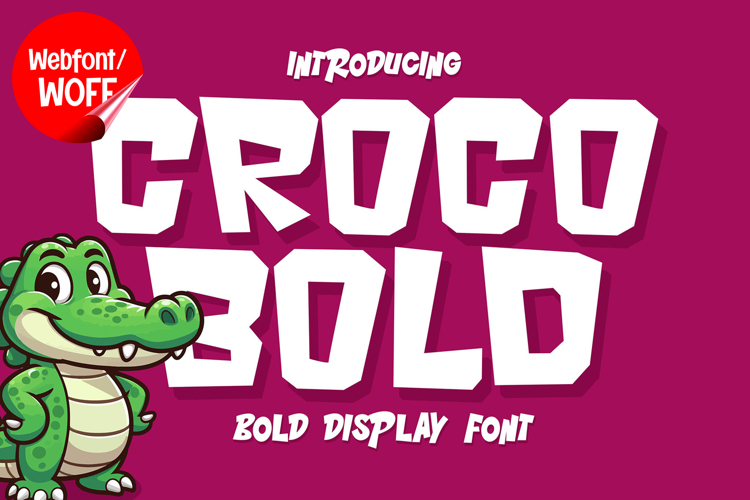
Crocobold | Bold Display Webfont for Strong Visual Impact
Crocobold is a bold display webfont designed to deliver strong visual presence and confident character for modern website design. With its thick letterforms and solid structure, this font creates a powerful and attention-grabbing look that stands out across digital layouts. It is an excellent choice for projects that require a clean yet impactful typographic style.
Crocobold includes a complete set of uppercase characters designed with bold and well-balanced proportions. The letterforms are strong and clear, making them highly effective for headlines, banners, hero sections, and featured content. Its solid structure helps create a clear visual hierarchy, allowing important messages to stand out with ease.
In addition to letters, the font includes numbers and punctuation, providing flexibility for various website elements. It works well for promotional text, pricing displays, navigation highlights, and branding components. Each character maintains a consistent bold style, ensuring a cohesive and unified visual identity throughout the layout.
With multilingual support, Crocobold includes a wide range of accented characters, making it suitable for international websites and global audiences. This ensures that content can be presented clearly across different languages while maintaining a strong and consistent visual style.
The bold display style of Crocobold makes it especially suitable for branding websites, corporate pages, product showcases, creative portfolios, and digital campaigns. Its confident and modern appearance adds clarity and impact, helping websites stand out in competitive digital environments. The straightforward design also makes it versatile across different industries and design themes.
Despite its bold and heavy appearance, Crocobold is designed with readability in mind. The spacing and proportions are carefully balanced to ensure clarity, particularly in display sizes. This allows designers to use the font effectively for high-impact text without sacrificing usability.
Crocobold is a webfont that combines bold design with modern digital performance. Its strong shapes, clean structure, and confident character create a distinctive typographic presence that enhances website design. For projects that require a clear, powerful, and visually engaging display font, Crocobold offers a reliable and effective solution.